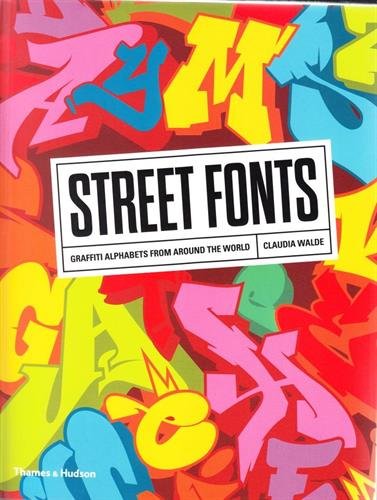
Street Fonts: Graffiti Alphabets from Around the World
Claudia Walde
A unique typographical sourcebook featuring over 150 specially designed, original alphabets exclusive to this book Classic graffiti lettering and experimental typographical forms lie at the heart of street culture and have long inspired designers in many different fields. But graffiti artists, who tend to paint the same letters of their tag again and again, rarely design complete alphabets. Claudia Walde has spent over two years collecting alphabets by 154 artists from 30 countries with a view to showing the many different styles and approaches to lettering within the graffiti and street art cultures. All of the artists have roots in graffiti. Some are world renowned such as 123 Klan (Canada), Faith47 (South Africa) and Hera (Germany); others are lesser known or only now starting to emerge. Each artist received the same brief:?to design all 26 letters of the Latin alphabet within the limits of a single page of the book. How they approached this task and selected the media with which to express their ideas was entirely up to them. The results are a fascinating insight into the creative process.
'A source of inspiration for type designers' Creative Review
'Brilliantly innovative ... a cool and classy work that will appeal not only to graffiti geeks but to anyone with an interest in design, graphics, typography or street culture' Metro